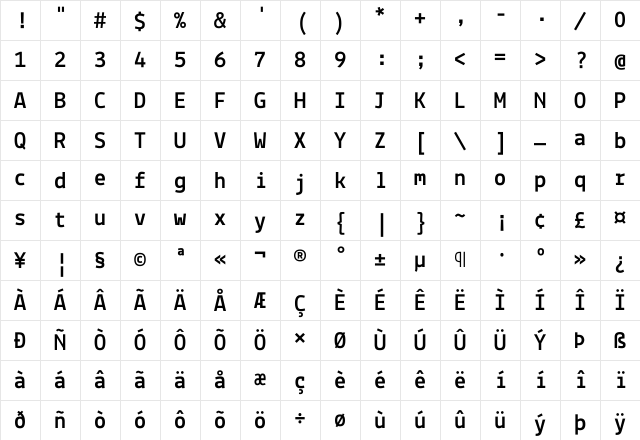
Complete Lekton Nerd Font Mono Bold glyph index. Displaying only characters natively supported by Lekton Nerd Font Mono Bold font.
Lekton Nerd Font Mono uses fixed-width spacing throughout, giving it the structured, systematic character associated with coding environments and technical documentation. Its bold stroke weight gives it real presence on the page.